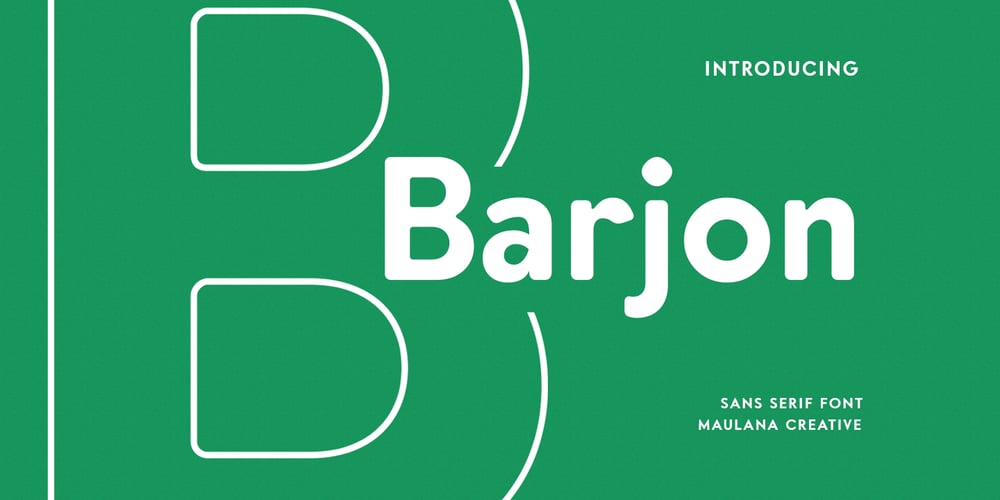
MC Barjon Font Family was designed by Gilang Maulana and published by Maulana Creative. MC Barjon contains 1 styles and family package options. Barjon is a minimal classic contemporary sans serif font. Round Bold stroke, fun character with a bit of ligatures and alternates. To give you an extra creative work. Barjon font support multilingual more than 100+ language. This font is good for logo design, Social media, Movie Titles, Books Titles, a short text even a long text letter and good for your secondary text font with script or serif. Make a stunning work with Barjon font.Cheers, Maulana Creative